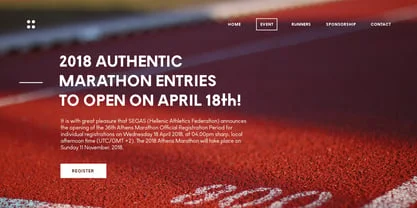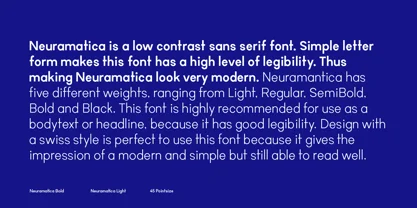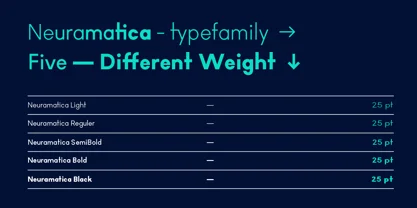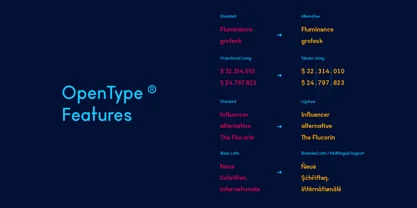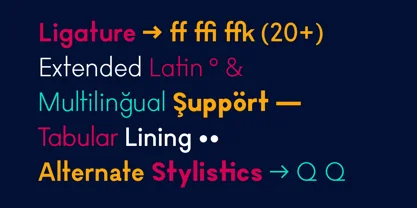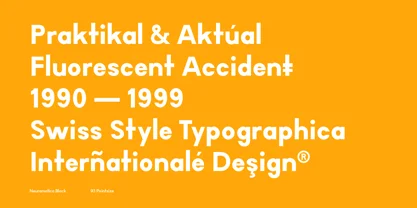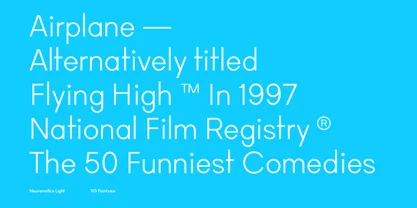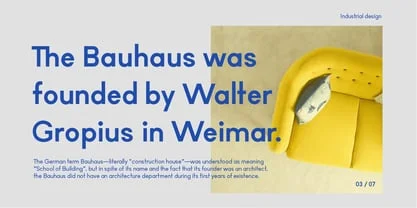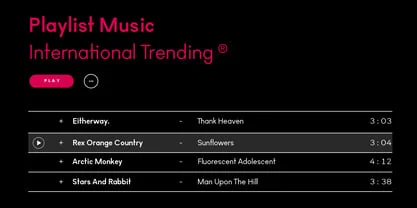
TG Neuramatica Font
When a design brief calls for both consistent type colour across continuous text and immediate visual impact, type choices matter — TG Neuramatica answers that brief. The typeface brings a versatile sensibility to a broad range of creative disciplines, with strong typographic hierarchy support that holds up whether the work is print-first or screen-first.
In practice, TG Neuramatica proves particularly effective for packaging design, signage systems, annual reports, advertising campaigns, editorial layouts. Designers reaching for it find that the type decisions feel resolved rather than laboured — a useful quality when client timelines are tight.
The range of applications extends to product labels, logo design, brand identity systems, web design. That breadth is deliberate: the proportions and spacing were stress-tested across a wide range of mock briefs before the typeface was finalised.
At smaller sizes the design retains its character without becoming cluttered. This resilience across scales makes TG Neuramatica equally suitable for a business card and a billboard — a useful property when assets must scale across a campaign.
Graphic designers working on identity systems find TG Neuramatica a reliable choice for projects that demand both personality and restraint. The design avoids the self-conscious quirkiness that dates quickly, settling instead for considered distinctiveness that holds up over time.